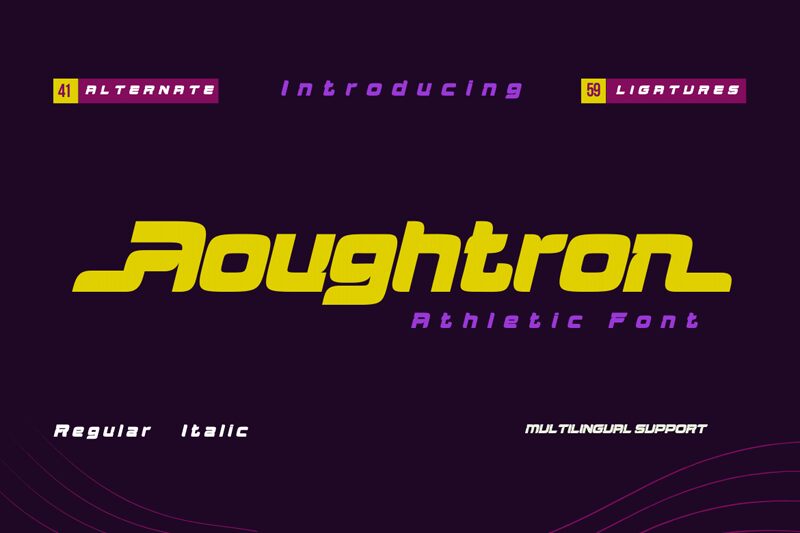
Aougtron Slant from the Aougtron family emerges as a bold statement in the realm of typography, crafted by the visionary minds at Twinletter. Its futuristic style propels designs into a new dimension, boasting an expanded form that commands attention. The font's assertive slant and pronounced character shapes exude confidence and dynamism, making it an ideal choice for projects that require a touch of the extraordinary.
This display typeface finds itself at home in contexts where striking visual impact is paramount-think cutting-edge advertising campaigns, immersive gaming interfaces, or innovative branding initiatives. Aougtron Slant's powerful presence ensures it stands out in any setting that calls for a modern, forward-thinking aesthetic.